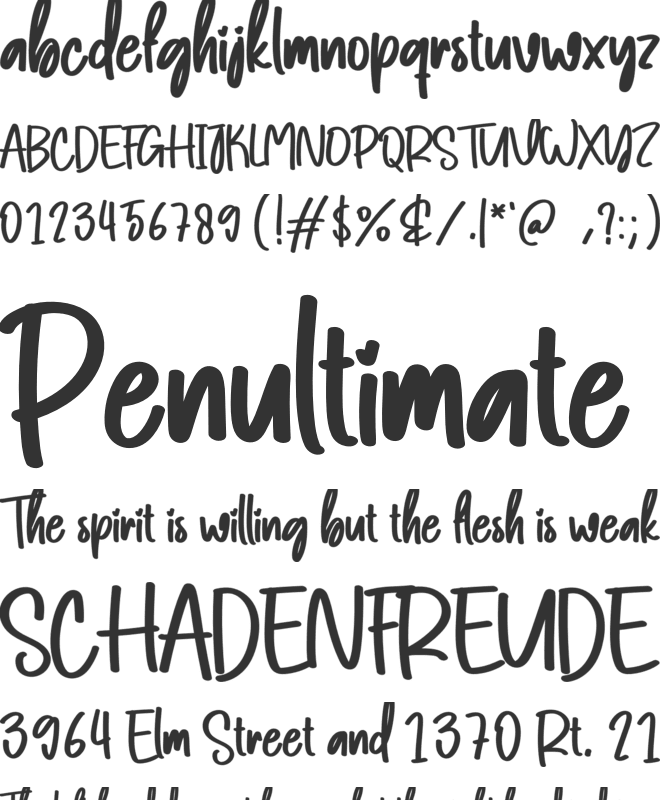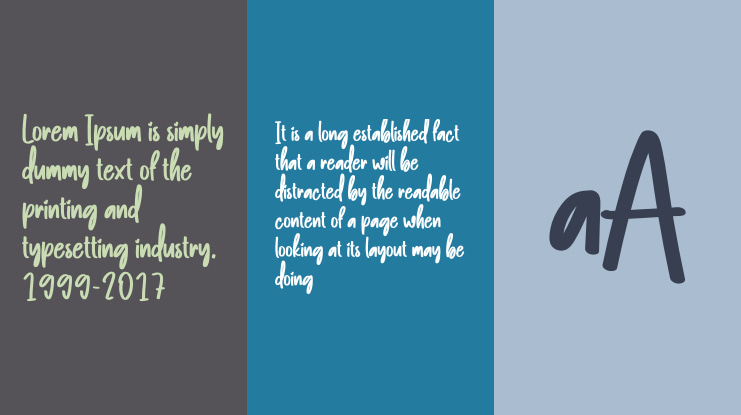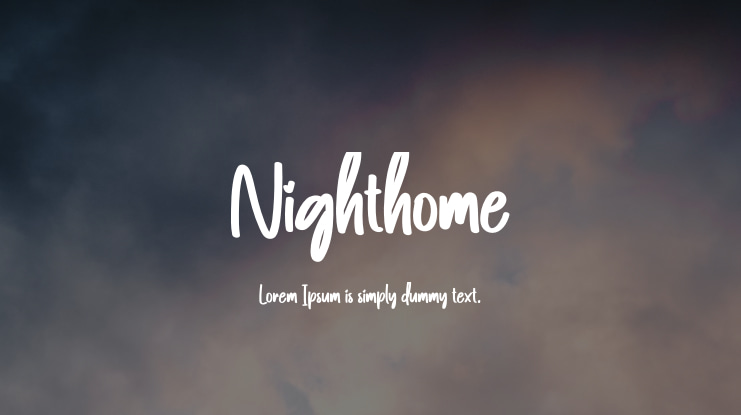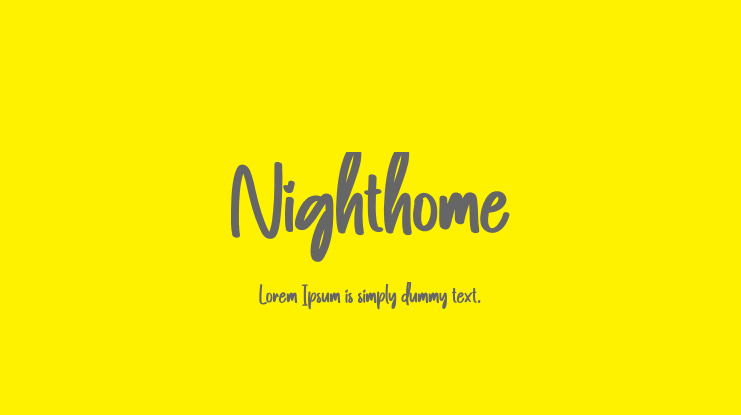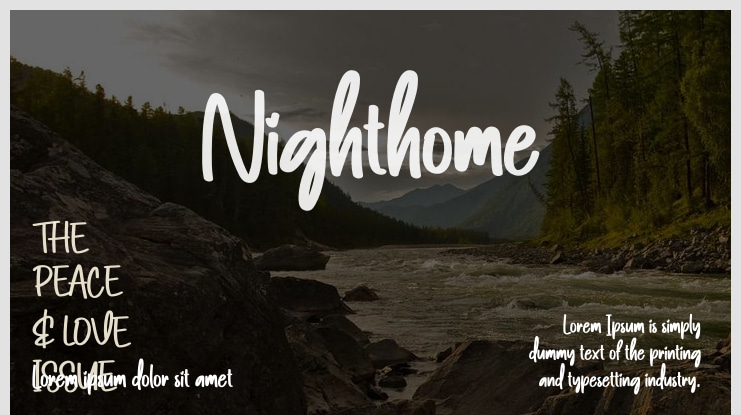
Our latest range of stylish letter designs are perfect for various applications such as wall displays, wedding invitations, social media post logos, advertisements, product packaging, labels, photography, watermarks, invitations, stationery, and any project that requires elegant handwriting.